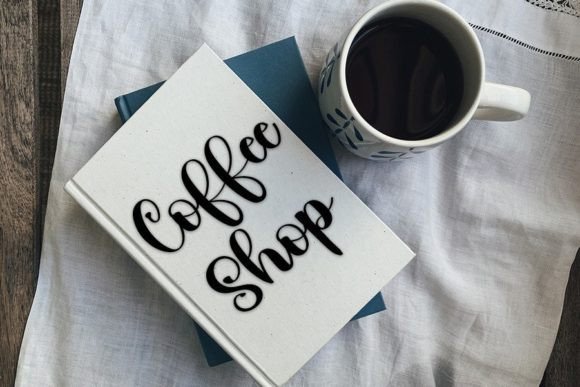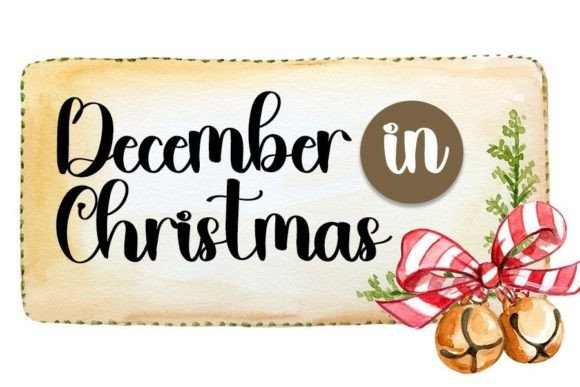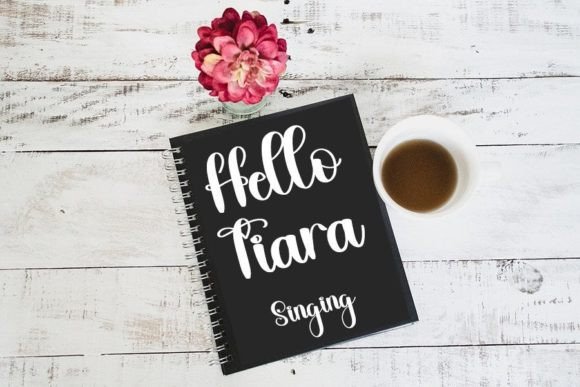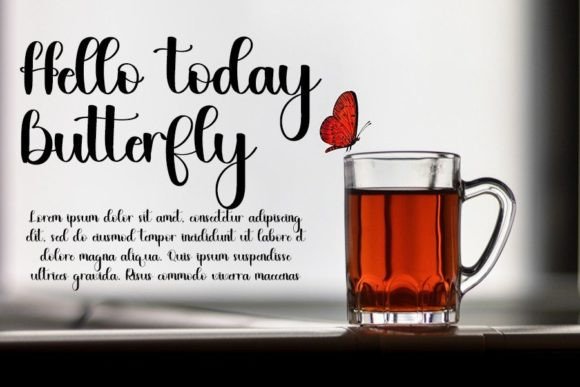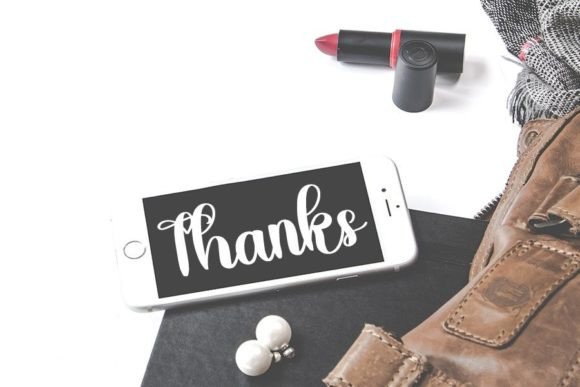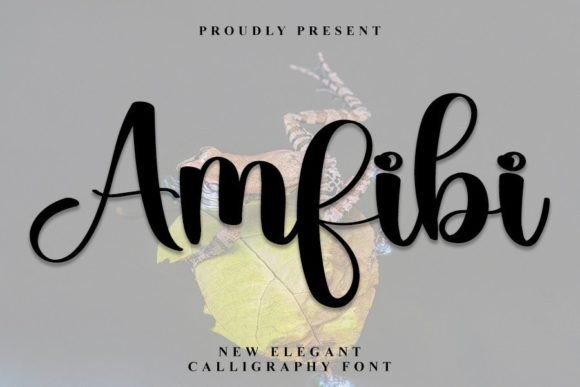
Introducing Amfibi Font: Elevate Your Designs with Timeless Elegance
In the world of typography, fonts play a crucial role in conveying the tone and personality of a design. For designers and crafters seeking a stylish and sophisticated touch, Amfibi Font is an exceptional choice. This stunning handwritten font boasts a contemporary atmosphere, impeccable form, and a classic appeal that will elevate the beauty of your projects.
The Inspiration Behind Amfibi Font
Amfibi Font draws inspiration from timeless classic calligraphy, offering a balanced and varied design that exudes elegance. The creator’s attention to detail has resulted in a font that not only looks great but also provides versatility. Whether you’re working on a branding project, packaging, or marketing materials, Amfibi Font is the perfect companion to help you achieve your design goals.
Key Features of Amfibi Font
• Stylish Handwritten Design: Amfibi Font features a beautiful, handwritten design that adds a personal touch to your projects.
• Contemporary Atmosphere: The font’s modern vibe ensures it stays relevant and fresh, making it suitable for a wide range of applications.
• Impeccable Form: The creator’s focus on detail has resulted in a font with impeccable form, ensuring it looks great in various sizes and resolutions.
• Balanced and Varied: Amfibi Font offers a balanced and varied design, making it perfect for use in different contexts, from headings to body text.
Use Cases for Amfibi Font
Amfibi Font’s versatility makes it an excellent choice for various design projects, including:
• Branding and Logo Design: Create a lasting impression with Amfibi Font’s elegant and sophisticated design.
• Packaging Design: Add a touch of luxury to your product packaging with this beautiful font.
• Marketing Materials: Elevate your marketing materials, such as brochures, flyers, and posters, with Amfibi Font’s stylish design.
• Web Design: Use Amfibi Font to create stunning website headers, titles, and other design elements.
Tips for Using Amfibi Font Effectively
To get the most out of Amfibi Font, consider the following tips:
• Pair with Neutral Backgrounds: Allow Amfibi Font to take center stage by pairing it with neutral backgrounds.
• Experiment with Sizes and Colors: Play with different sizes and colors to create visual interest and hierarchy.
• Use for Headings and Titles: Take advantage of Amfibi Font’s elegant design by using it for headings and titles.
Amfibi Font is a stunning handwritten font that brings a touch of timeless elegance to your designs. Its contemporary atmosphere, impeccable form, and balanced design make it an excellent choice for designers and crafters seeking to elevate their projects. With its versatility and range of use cases, Amfibi Font is sure to become a go-to font in your design arsenal.